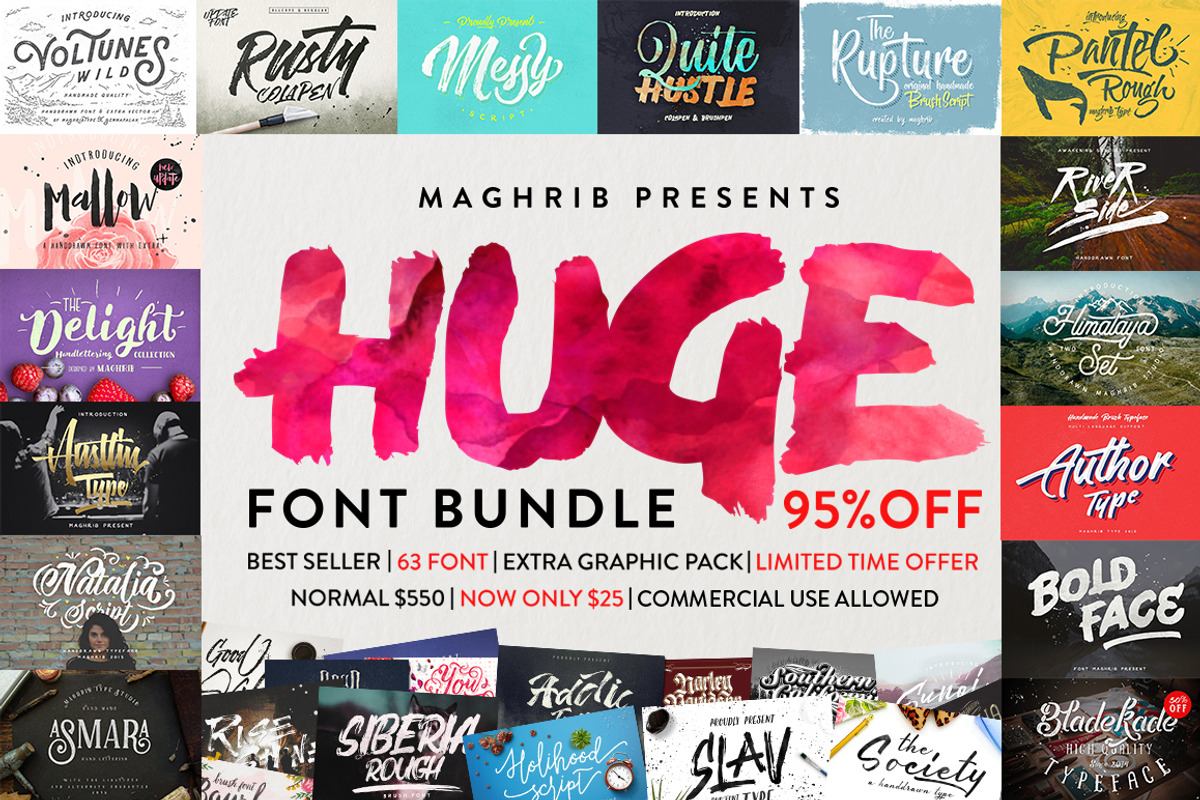
HUGE BUNDLE Font Free Download
HUGE BUNDLE Font Free Download is an expansive collection of versatile typefaces designed to meet all your creative needs. With a variety of styles, from modern sans-serifs to elegant serifs and playful scripts, this font bundle is perfect for logos, branding, posters, invitations, packaging, and much more. It gives you everything you need to tackle a wide range of design projects with ease and flexibility.
Whether you're creating a bold brand identity, crafting a stylish website, or working on eye-catching promotional materials, this font bundle provides you with a rich selection of fonts to bring your ideas to life.